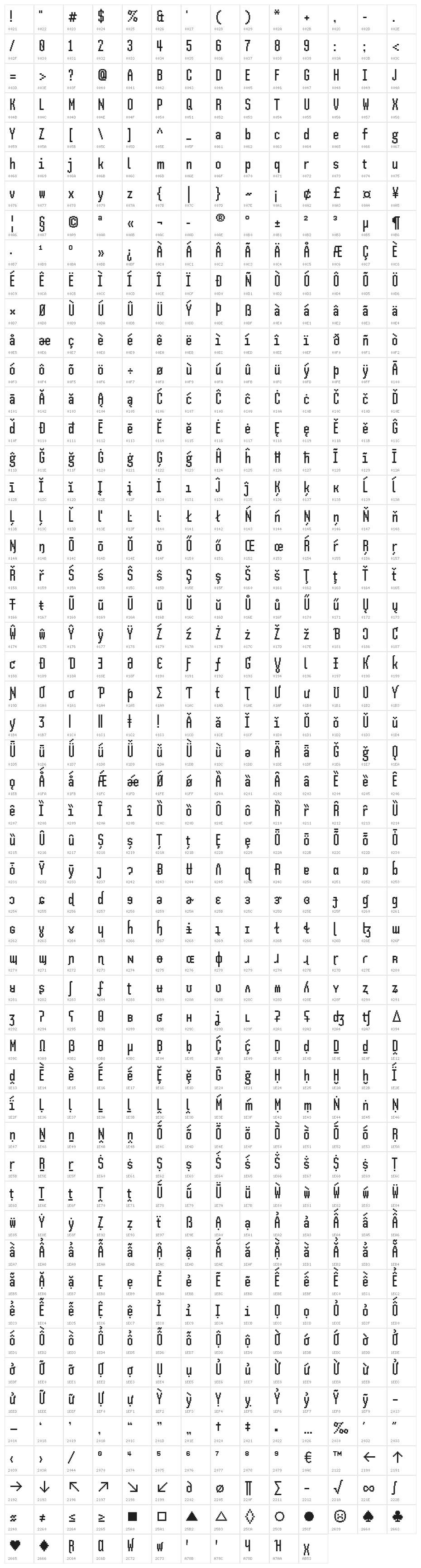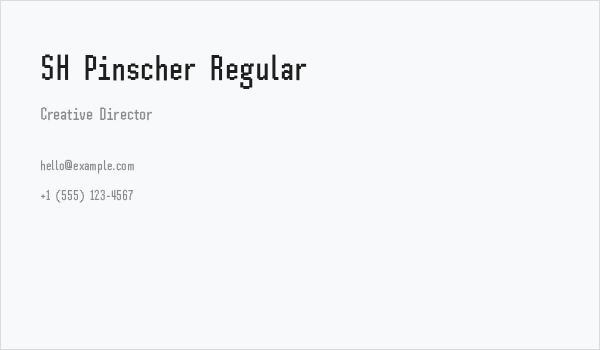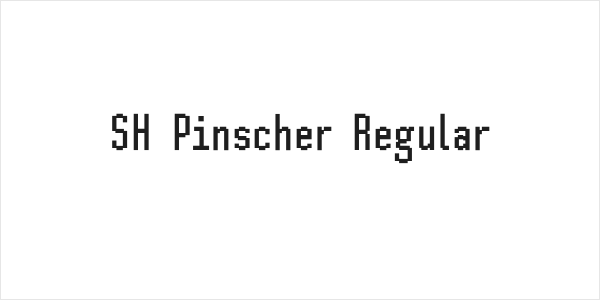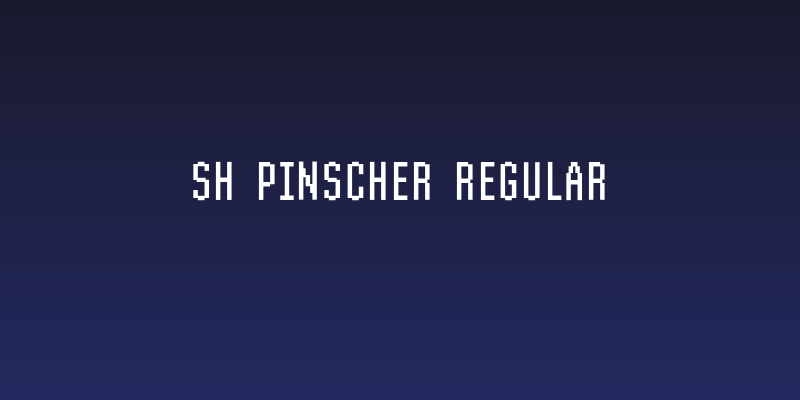
SH Pinscher Regular Font
SH Pinscher Regular Description
This font features a pixelated, monospaced design reminiscent of early digital displays and retro gaming aesthetics. Each character is constructed with a uniform grid-like structure, giving it a distinct, blocky appearance. The uppercase and lowercase letters maintain a consistent height, contributing to its monospaced nature. The numerals and special characters follow the same pixelated style, ensuring uniformity across all glyphs. This design is ideal for projects that aim to evoke nostalgia or a vintage digital feel.
| Use Case | Logos, Digital displays, Retro-themed projects |
| Proposed Projects | Ideal for retro video game designs, digital art projects, or any creative work that seeks to capture a vintage computer or arcade game vibe. |